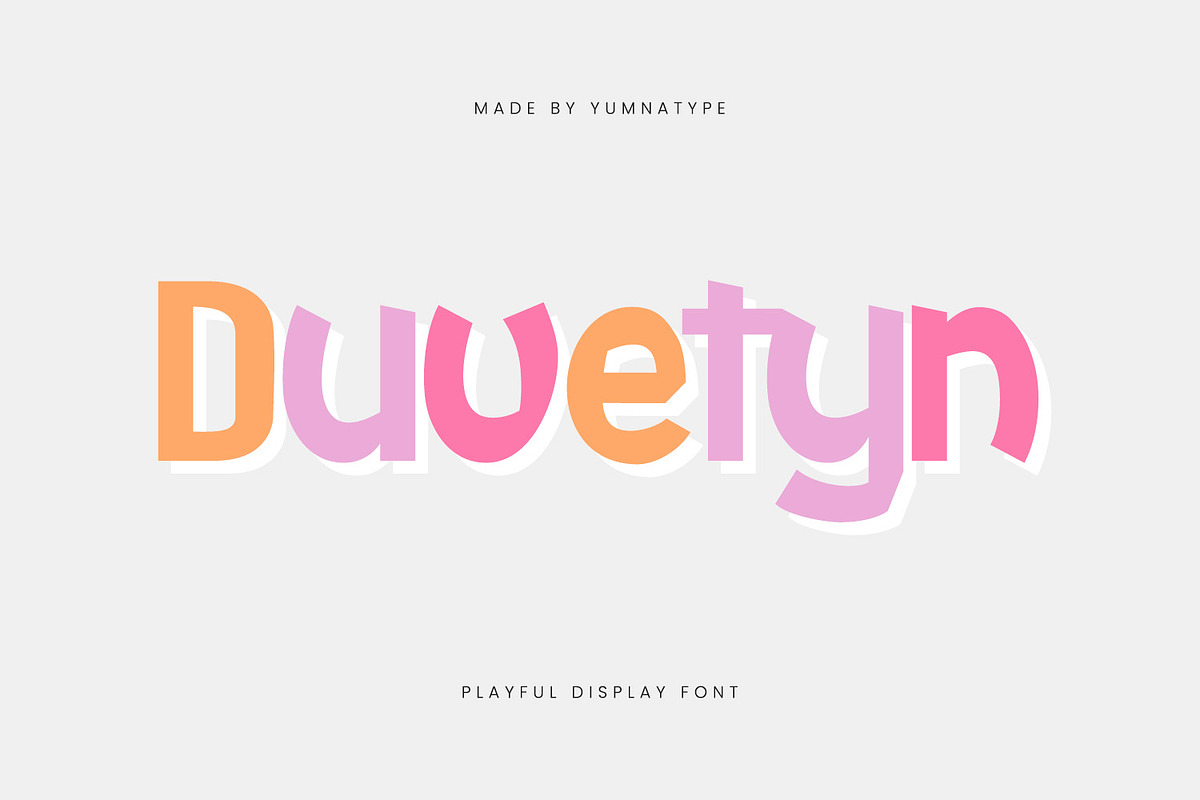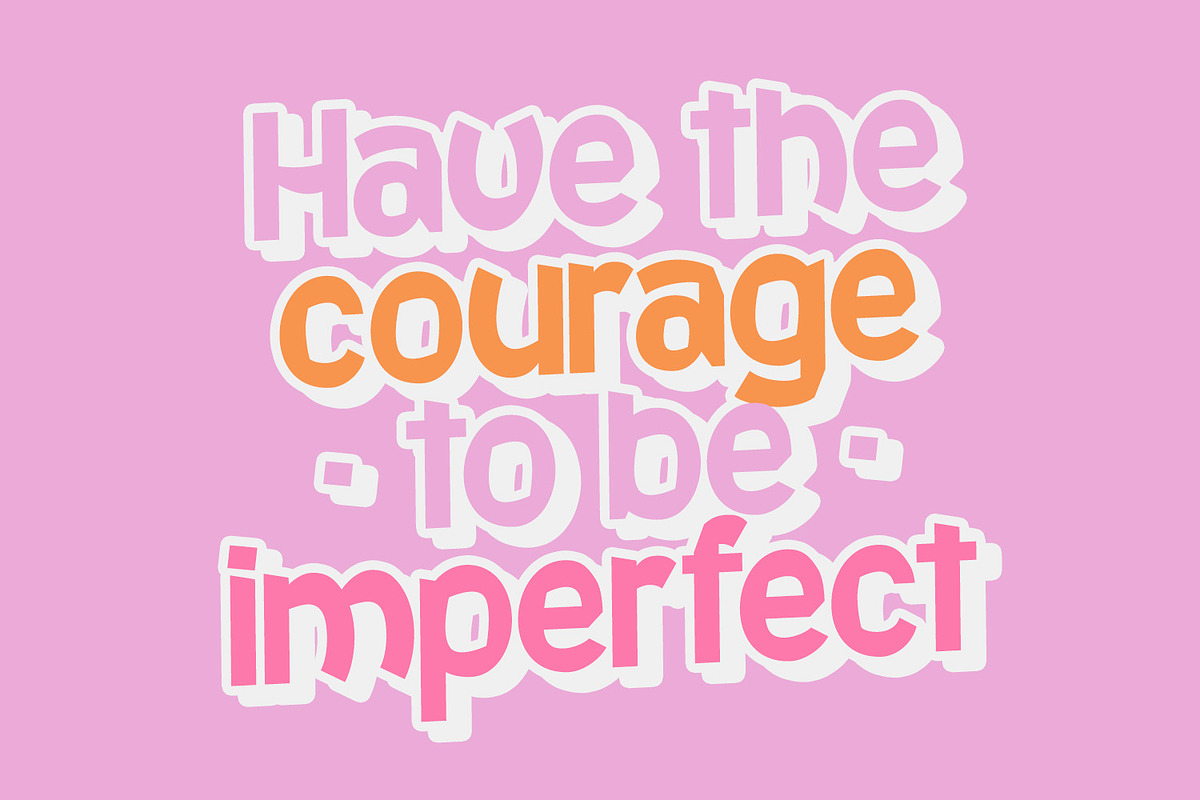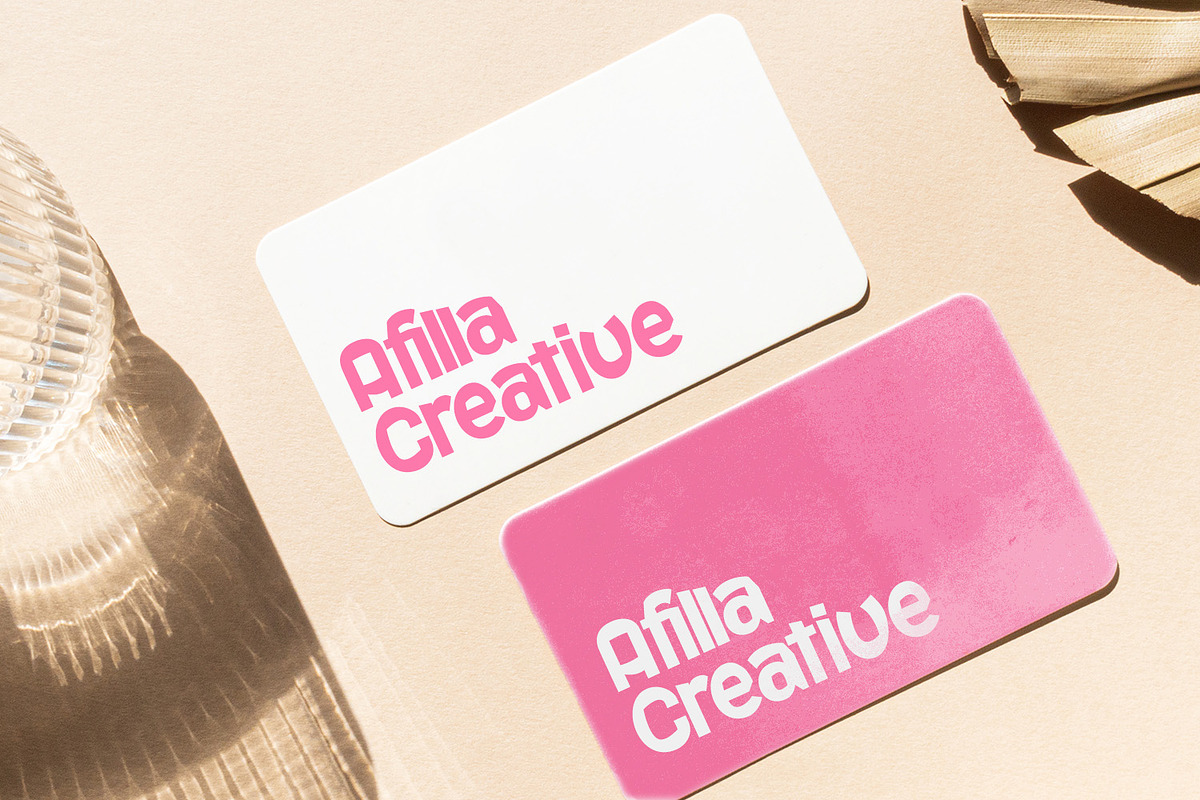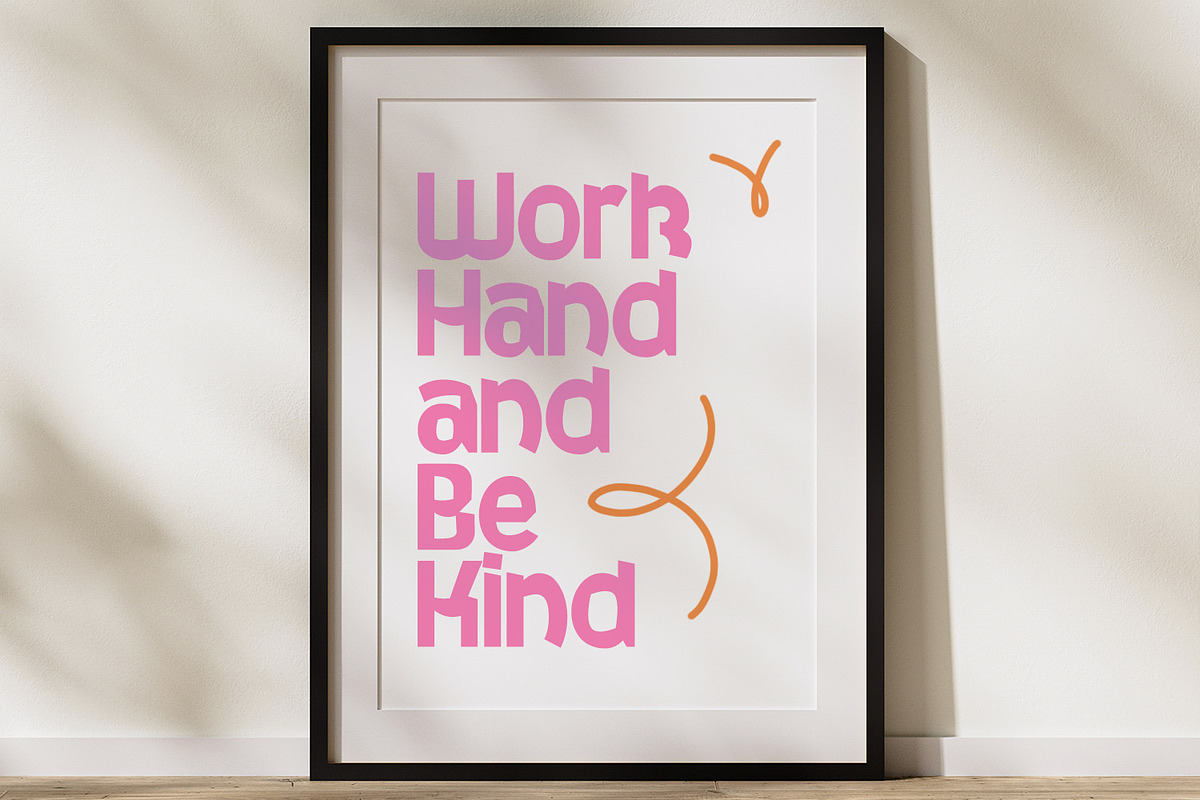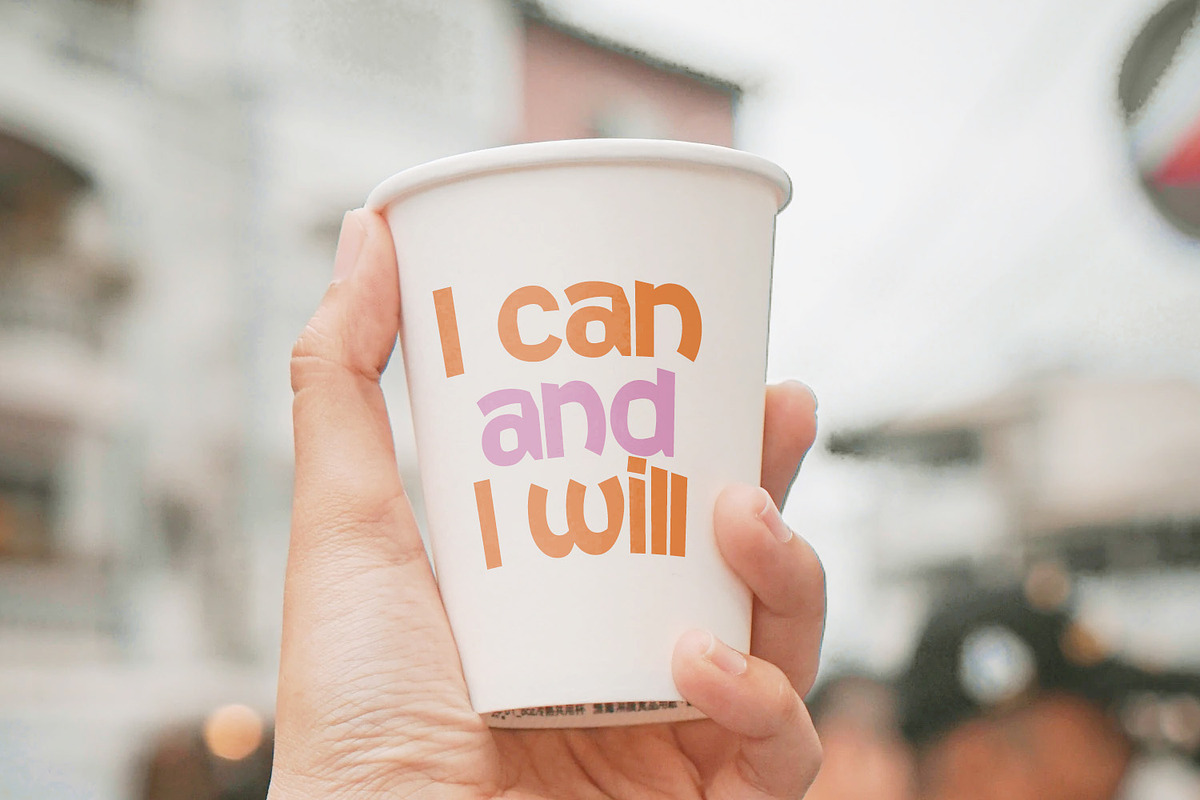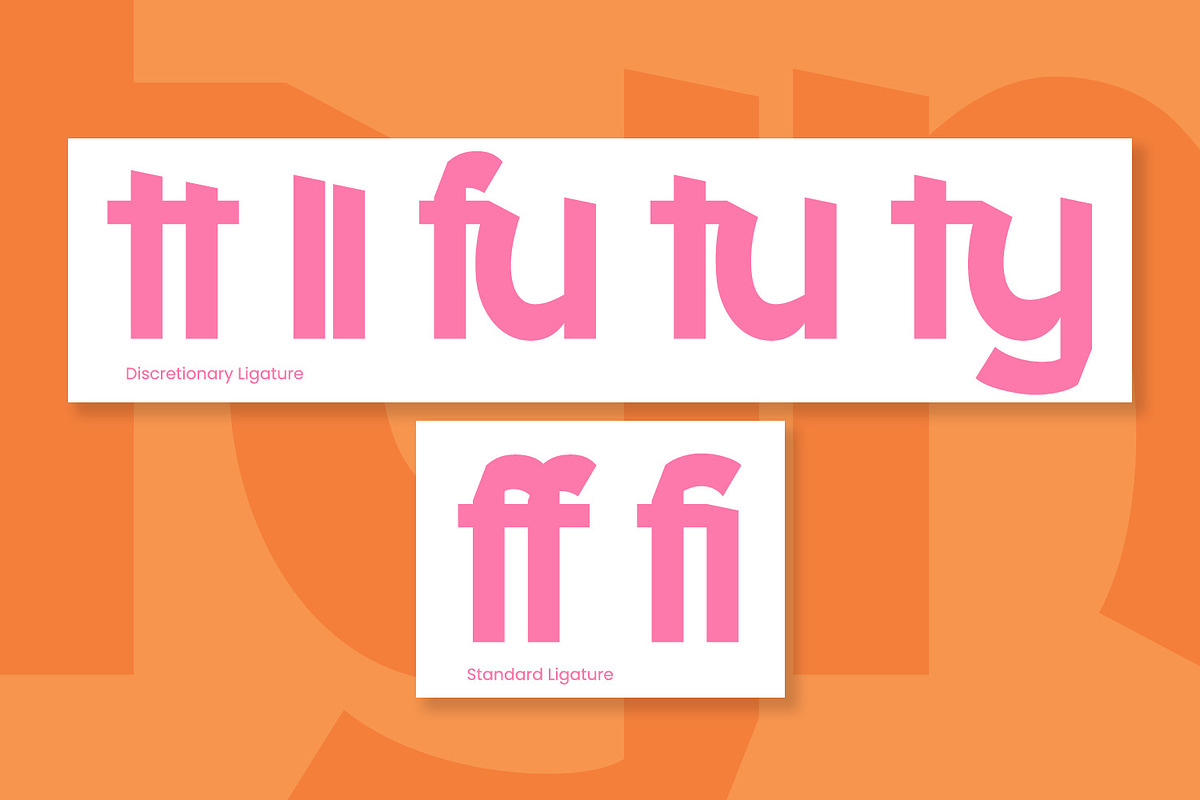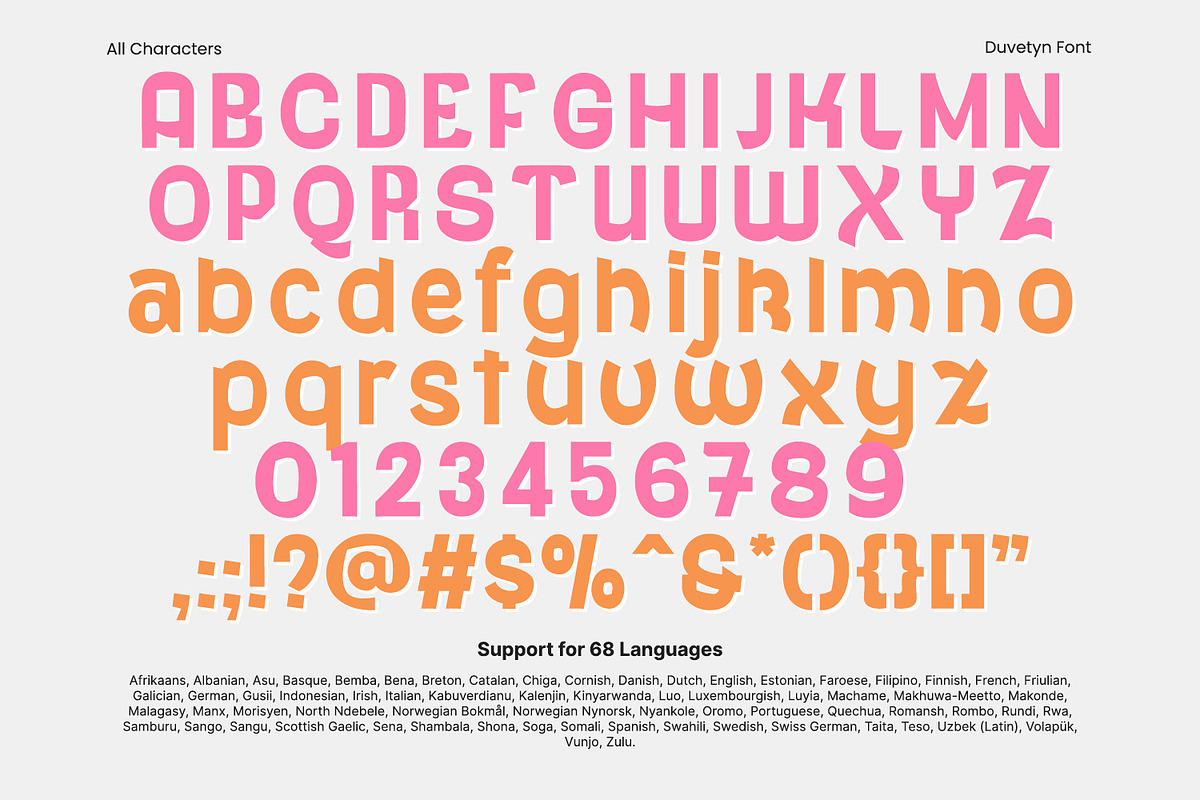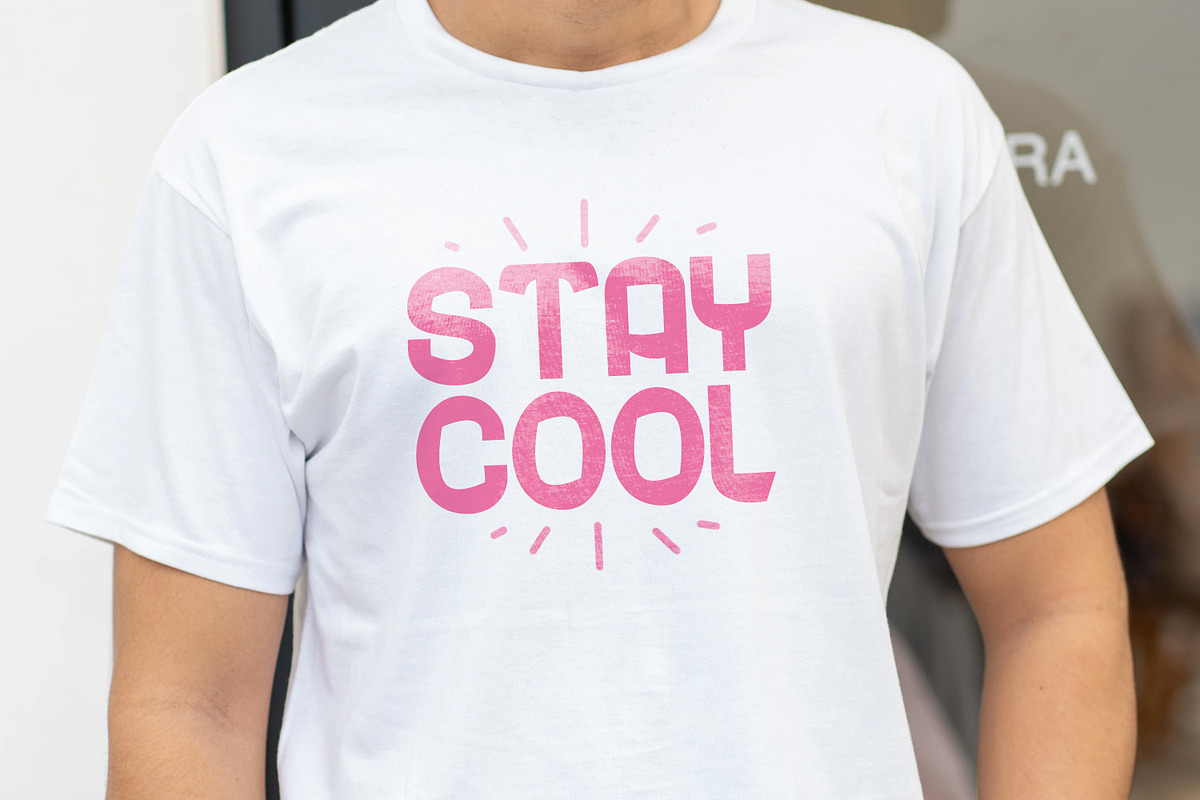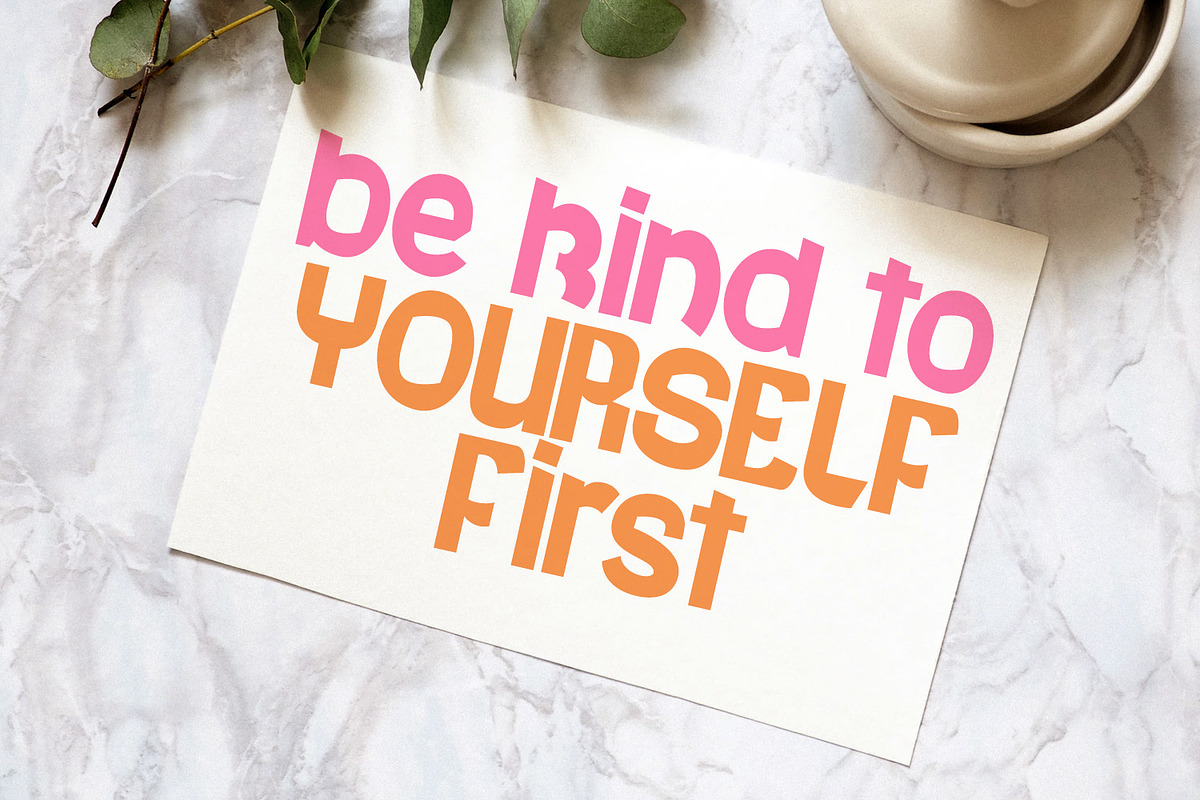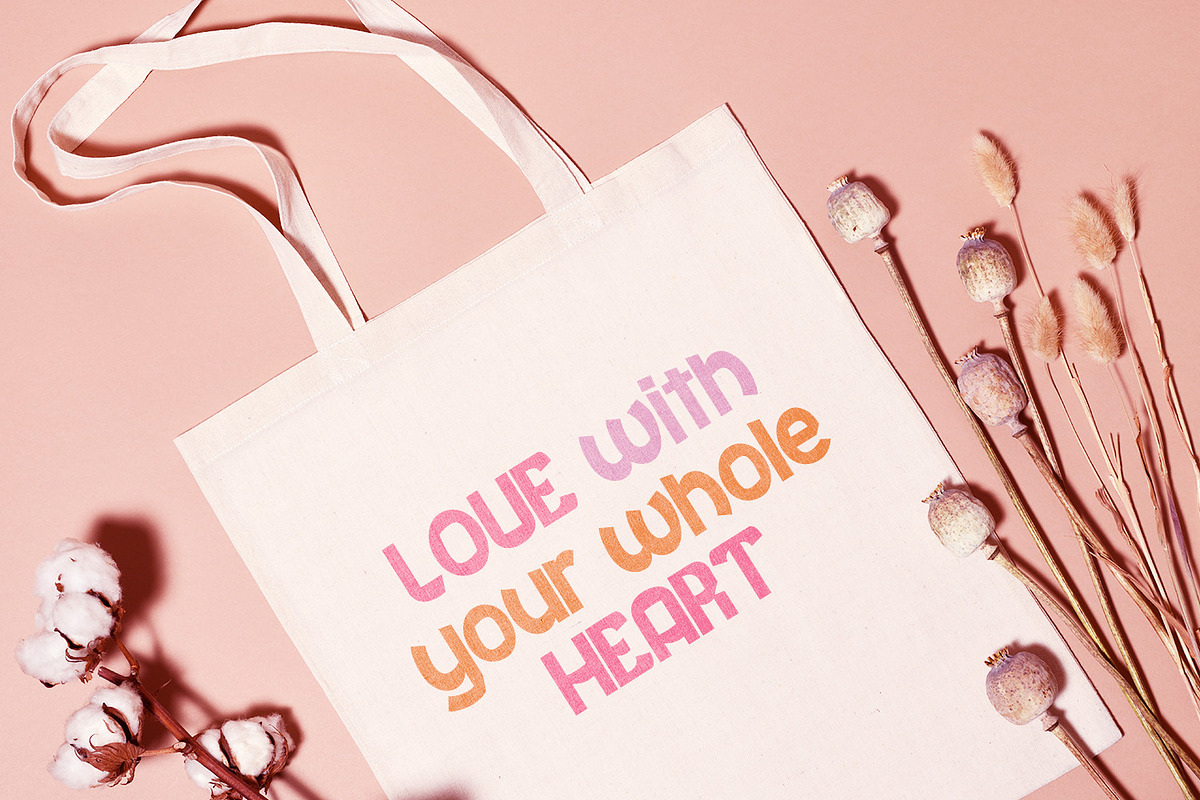
Duvetyn
Duvetyn is a vibrant display font that brings a touch of playfulness and boldness to your designs. With its quite thick weight, Duvetyn ensures that your text commands attention while maintaining a delightful, whimsical charm. The font's sturdy shape adds a sense of stability and reliability, making it perfect for a wide range of creative projects.
The playful style of Duvetyn is ideal for designs that aim to capture joy and imagination. Its substantial weight and solid form provide excellent readability. In addition, enjoy the features here.
Duvetyn fits in headlines, logos, posters, flyers, branding materials, print media, editorial layouts, and many more designs. Find out more ways to use this font by taking a look at the font preview.